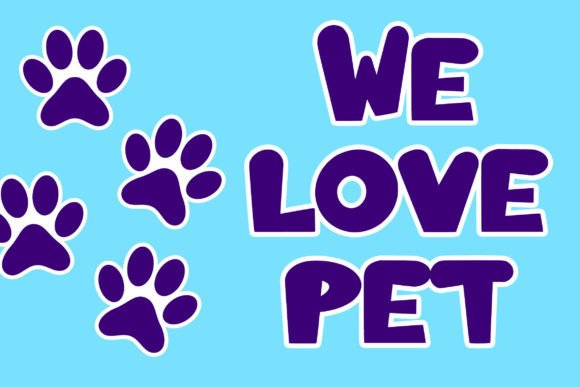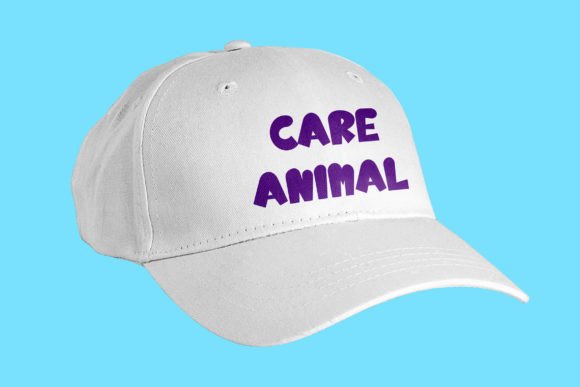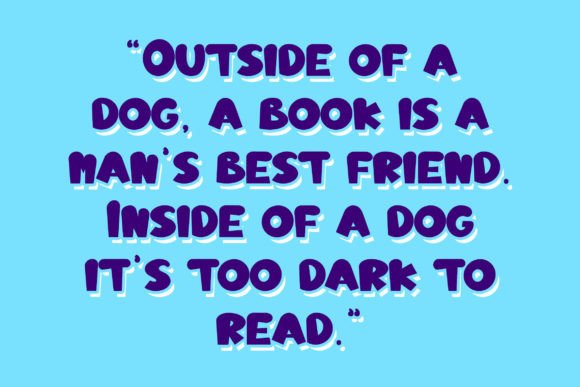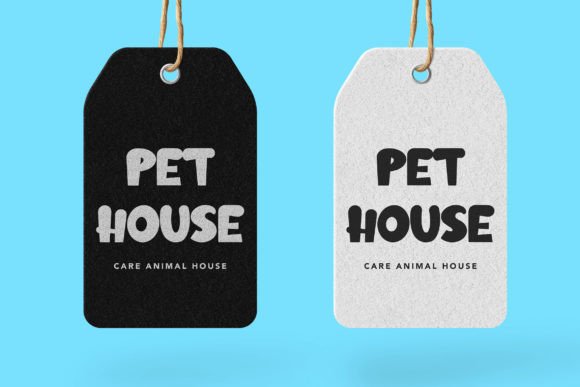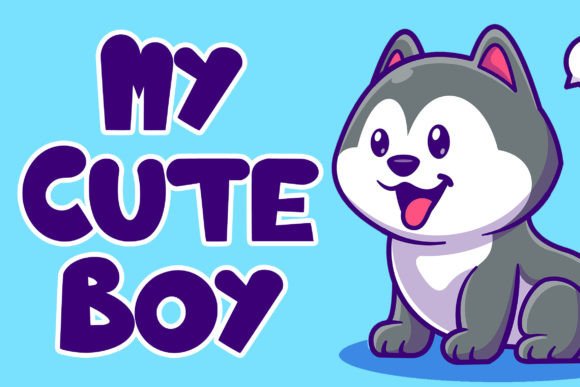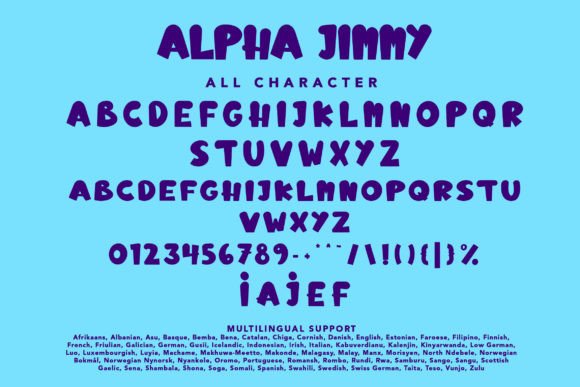
The Designer’s Delight: Alpha Jimmy Font
I still remember the frustration of working on a branding project for a client who wanted a unique, eye-catching font that would set their business apart. I scoured the internet, tried countless fonts, but nothing seemed quite right. That was until I stumbled upon the Alpha Jimmy font. It was love at first sight! 😍 With its distinctive characters and playful vibe, I knew I had found the perfect fit. In this article, I’ll share my experience with Alpha Jimmy, its features, and how to make the most of this amazing font.
• ✨ Unique and quirky character designs that add a touch of personality to any project
• ✅ Perfect for display purposes, such as logos, headings, and titles
• 💕 Extensive range of OpenType features, including stylistic alternates and glyphs
• 🎉 Highly legible, even at smaller font sizes
While Alpha Jimmy is an excellent font, there are a few things to keep in mind:
• 🤔 May not be suitable for body text or long-form content due to its display-focused design
• ⚠️ Some characters may require manual kerning for optimal spacing
Alpha Jimmy was designed with the intention of creating a unique and playful font that would bring a touch of personality to any project. Inspired by the world of art and design, the creator of Alpha Jimmy aimed to craft a font that would be both fun and functional. With its distinctive characters and extensive range of OpenType features, Alpha Jimmy is the perfect choice for designers looking to add a little extra something to their work.
What type of projects is Alpha Jimmy best suited for? Alpha Jimmy is perfect for branding projects, logos, wedding designs, media posts, advertisements, product packaging, product designs, labels, photography, watermarks, invitations, stationery, and any project that needs amazing typography.
Is Alpha Jimmy easy to read? Yes, Alpha Jimmy is highly legible, even at smaller font sizes, making it suitable for display purposes.
Does Alpha Jimmy have OpenType features? Yes, Alpha Jimmy has an extensive range of OpenType features, including stylistic alternates, glyphs, and ligatures.